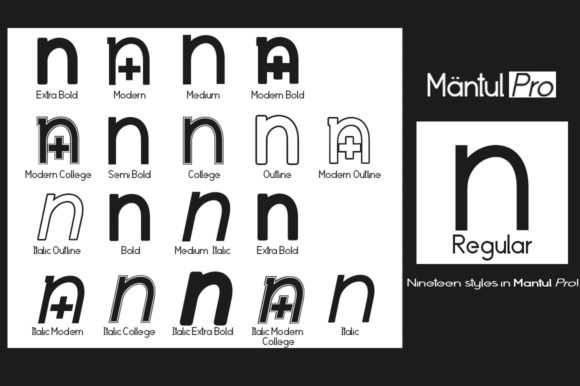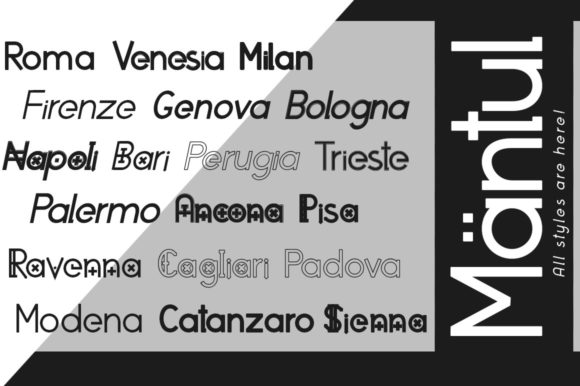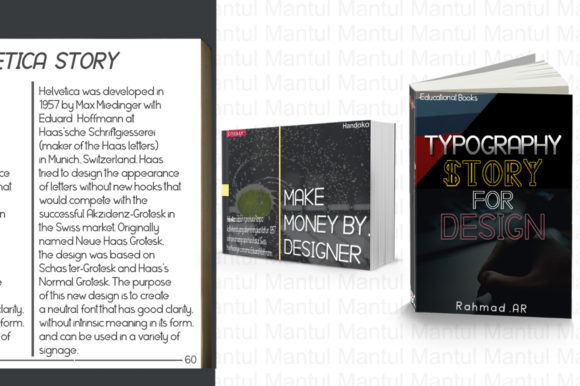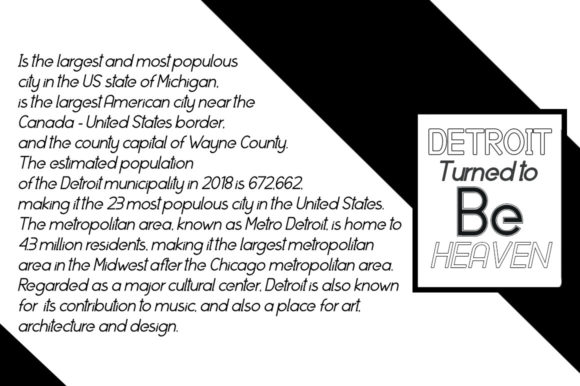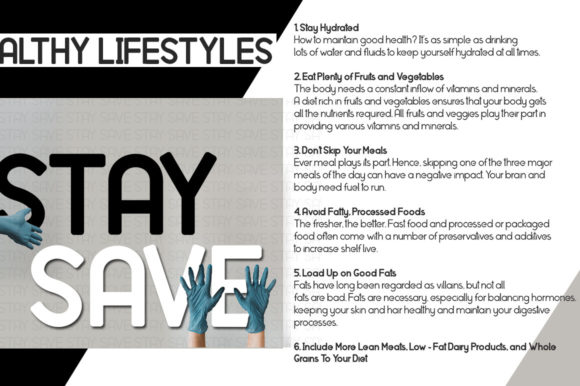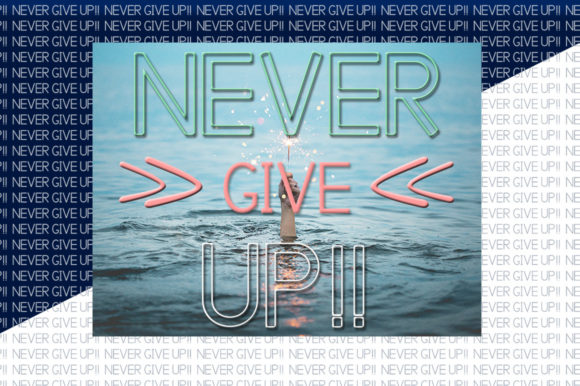
Introduction to Mantul Pro Font
Mantul Pro is inspired by the sans-serif style and a little modern touch, making this font luxurious & neat.
Mantul Pro has 19 font styles that are luxurious & extraordinary This font is very nice for designing magazine previews and covers design, logo designs, shirt designs, and other graphic needs.